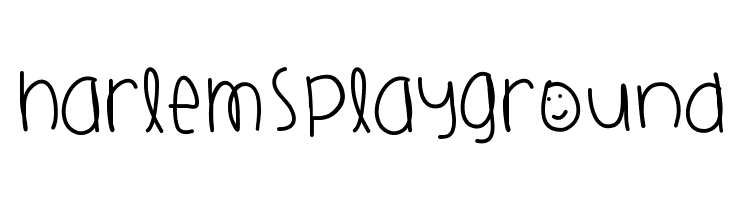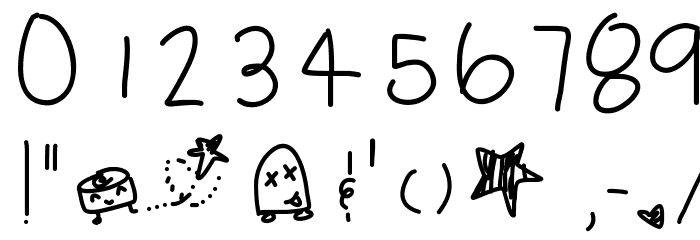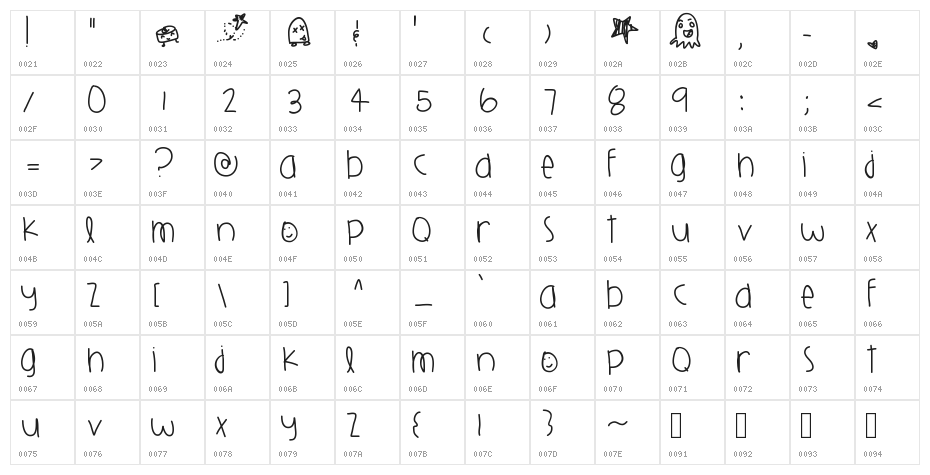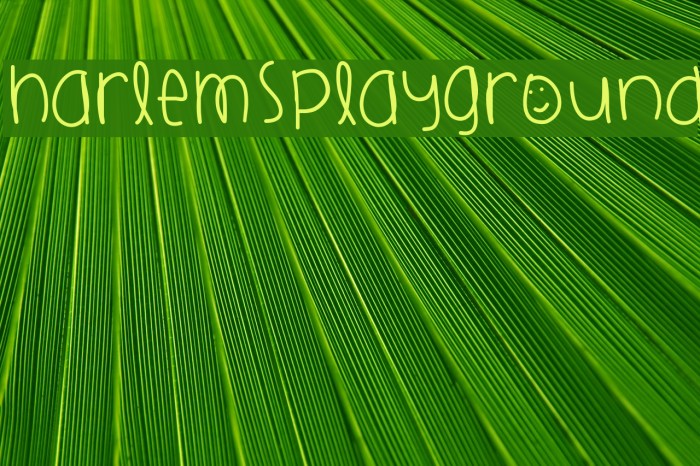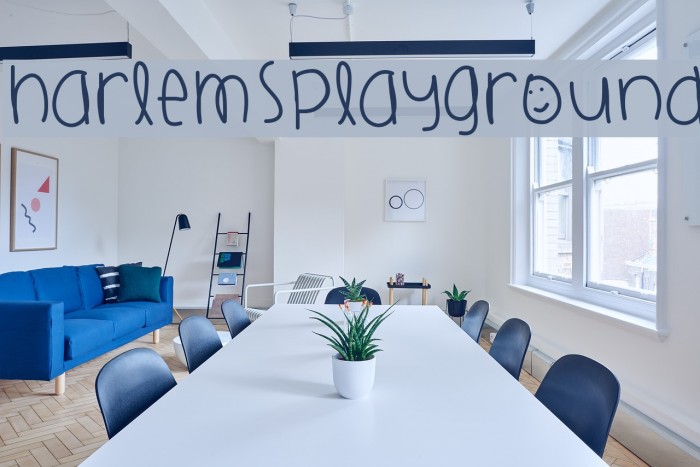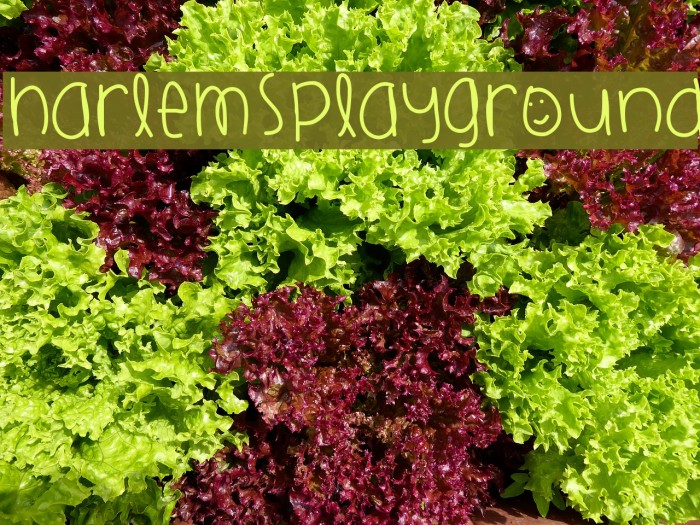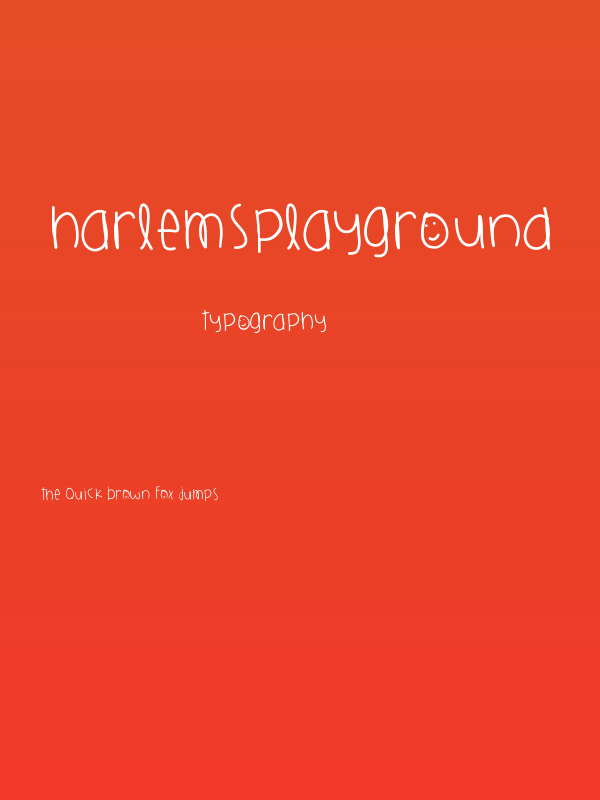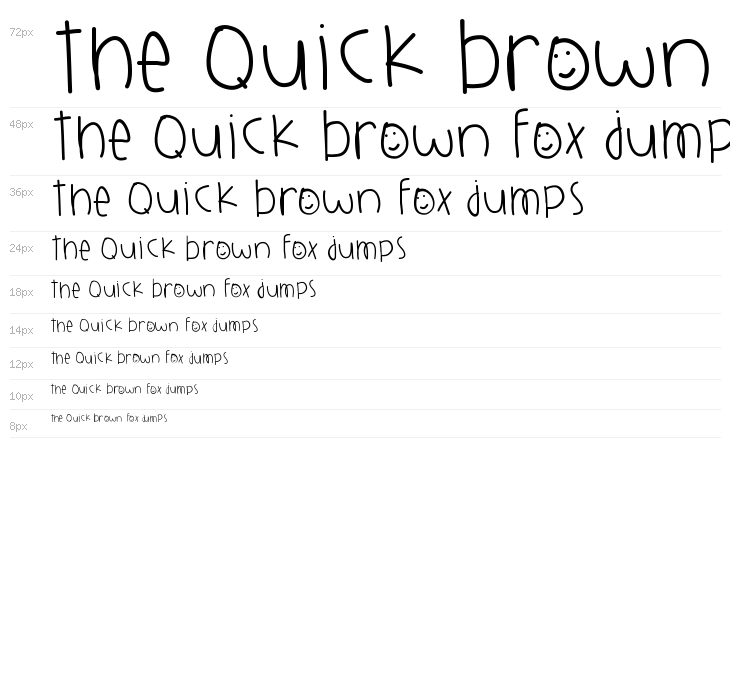
HarlemsPlayground Font
HarlemsPlayground Description
This playful and whimsical font features a handwritten style with a casual and friendly appearance. The characters are slightly irregular, adding to its charm and informal feel. The uppercase and lowercase letters maintain a consistent height, while the numbers and special characters are creatively designed with unique elements, such as smiley faces and stars. The font's strokes are smooth and rounded, giving it a soft and approachable look. It's perfect for projects that require a personal touch or a fun, lighthearted vibe.
| Proposed Projects | Ideal for children's books, greeting cards, playful branding, and creative social media graphics. |